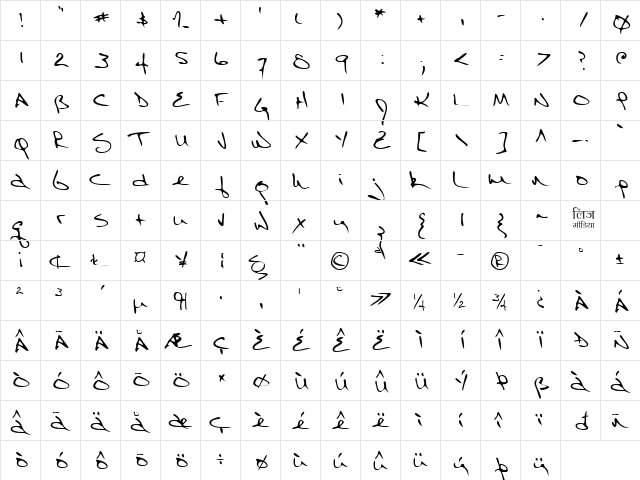
LEHN086 Regular
Design Context for LEHN086 Typeface
LEHN086 is a composed and adaptable typeface that performs quietly and consistently across a wide range of design contexts.